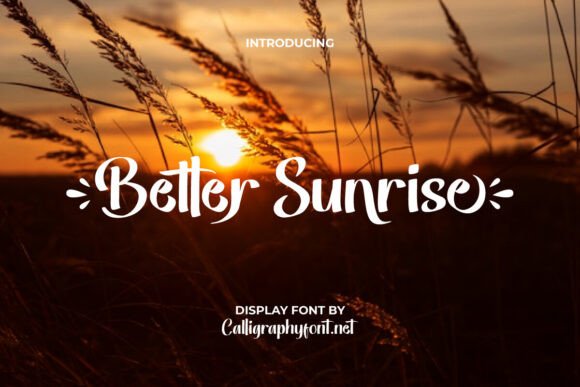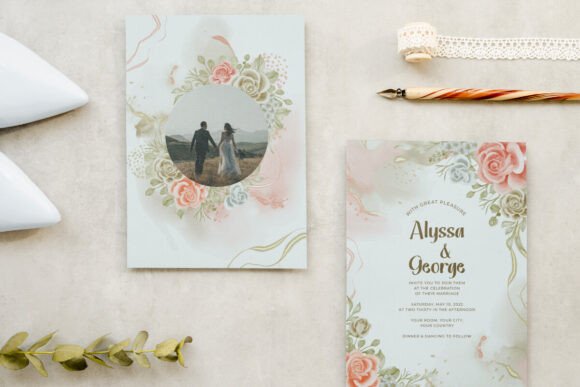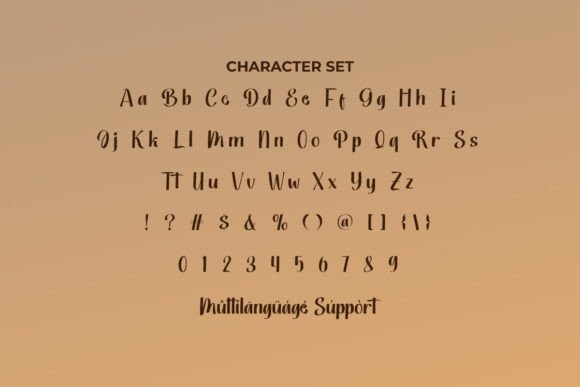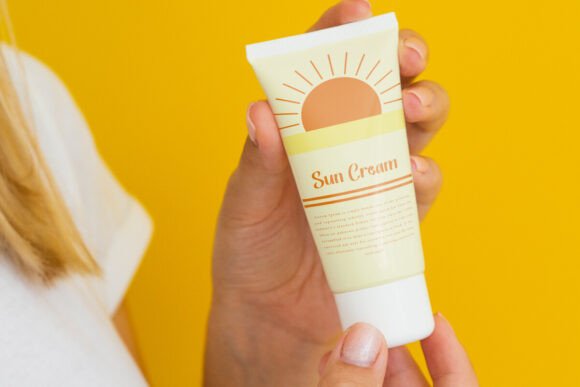
Better Sunrise Font: A Brush Script for Wedding & Branding Design
About the Better Sunrise Font
From logos to headlines, the Better Sunrise Font is the perfect choice for making a lasting impression. Better Sunrise Font is a modern display font with beautiful brush strokes around each character, created by CalligraphyFonts. This typography is one of the many types of lettering with an understated look that will be perfect for any creative project, such as apps, billboards, brand logos, brochures, business cards, flyers, greeting cards, headers, invitation, labels, product packaging, poster, price tag, quotes, screen print, stationery, title, website, and many more.
Better Sunrise Font is a classy font that is perfect both in single-use and in combination with other types of font styles. It will be great for any industry, including accessories, advertisement, authors, beauty vloggers, café, content creators, cosmetics, event organizers, fashion brands, furniture, graphic design, handicraft, health fitness, interior design, photography, printing, publishing, restaurant, skincare, wedding, writer, etc.
Better Sunrise Font Usage Examples
Better Sunrise Font Example